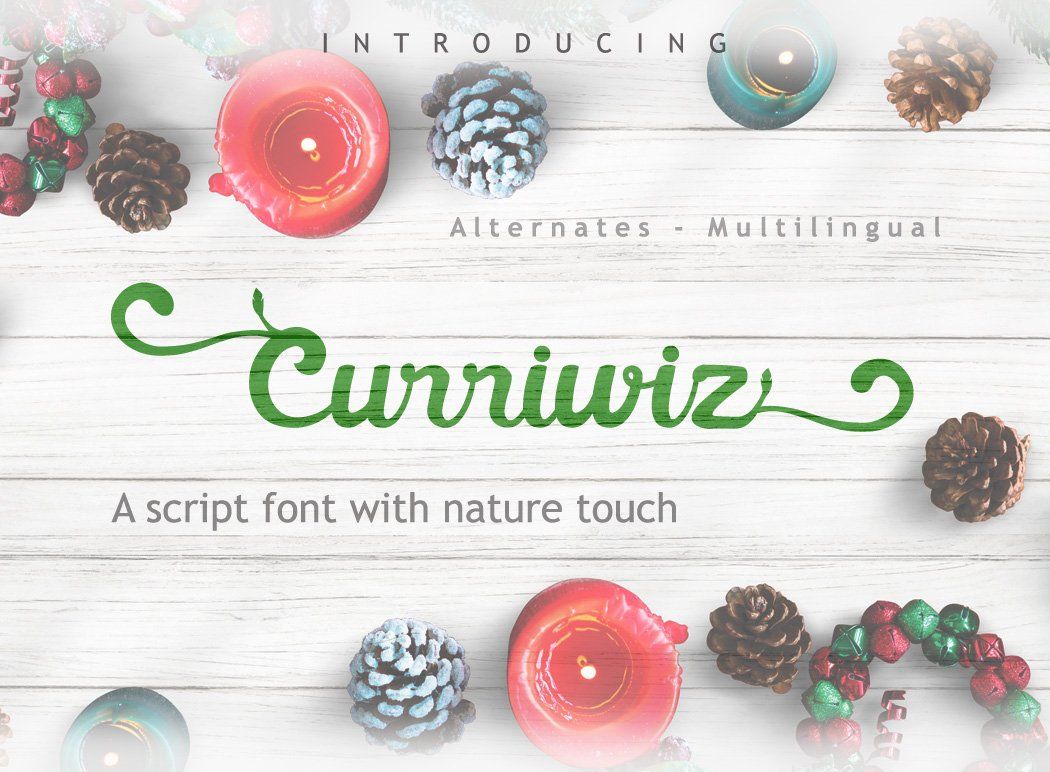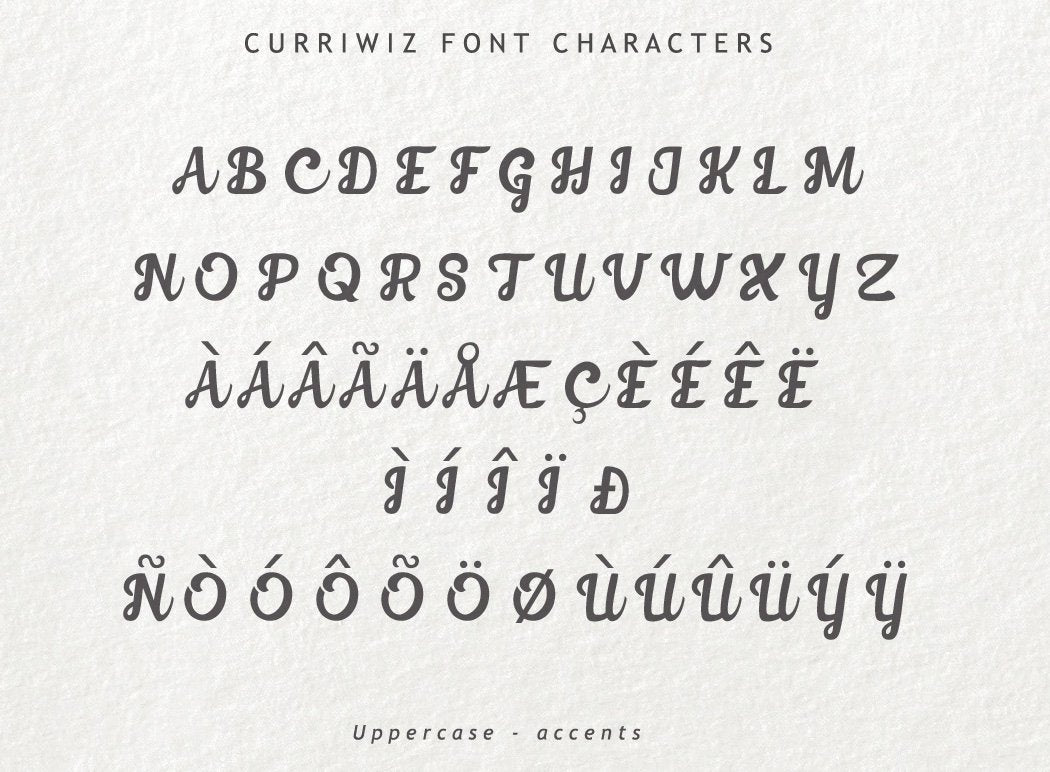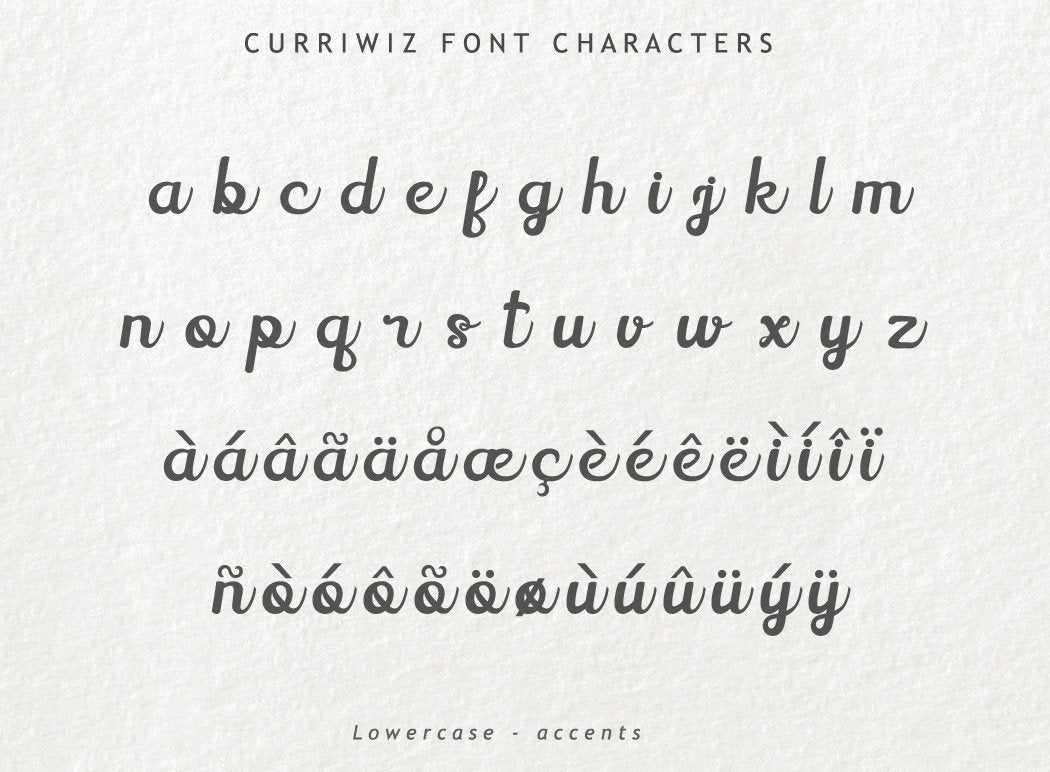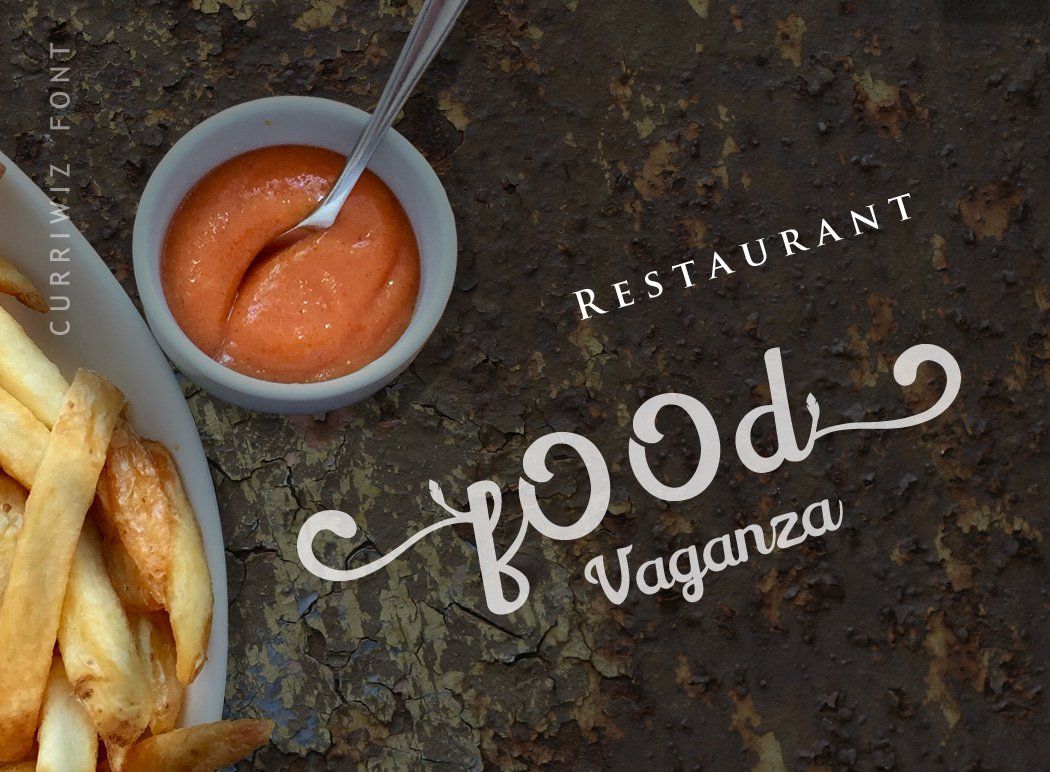
About Curriwiz Font
Curriwiz Font Curriwiz is a beautiful script font with nature touch design. Perfect for logos, wedding invites, branding, quotes, product packaging, headers, and more. Features : Available in single OTF and TTF files Uppercase A-Z Lowercase a-z Numbers 0-9 Accents Punctuation PUA Encoded Uppercase Alternates Lowercase Alternates Multilingual support Support for Windows, Mac and Linux OS If you have any questions regarding this product kindly leave your message through the contact form or contact us at  . Enjoy the font!! Thank you.. Don’t forget to visit our shop and check our products click here